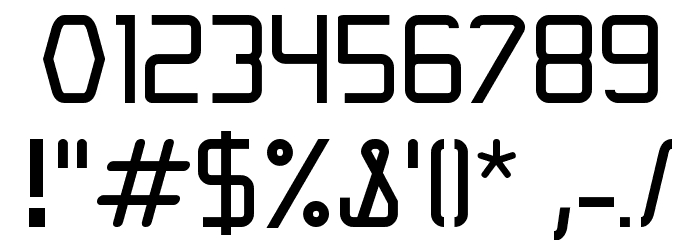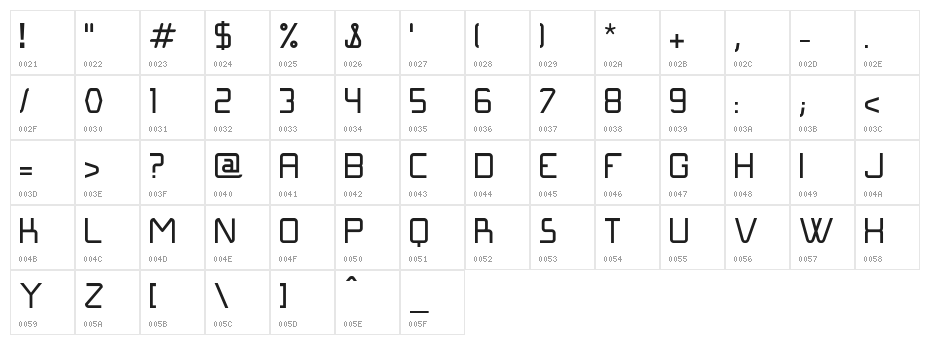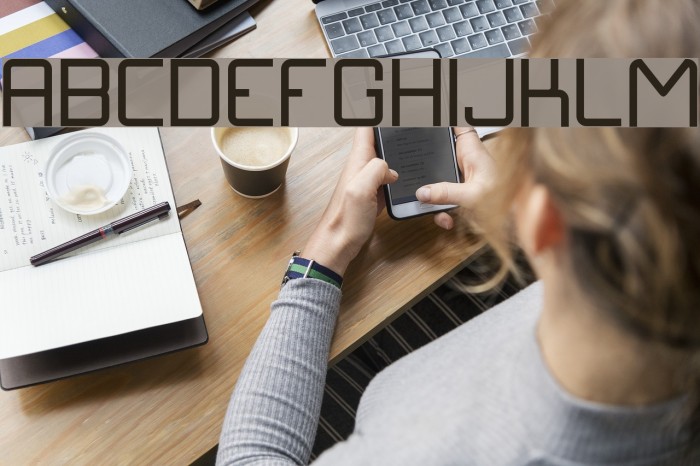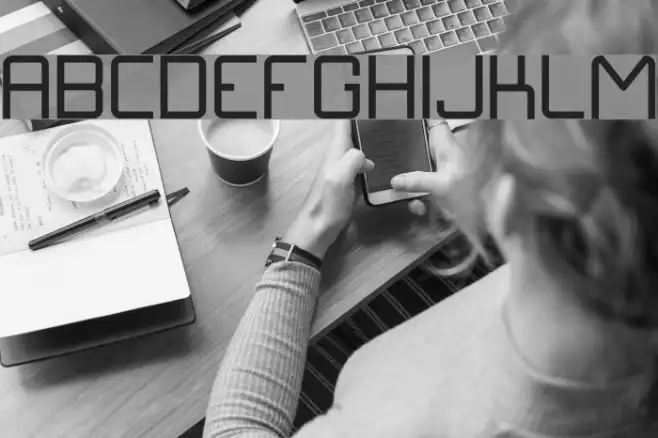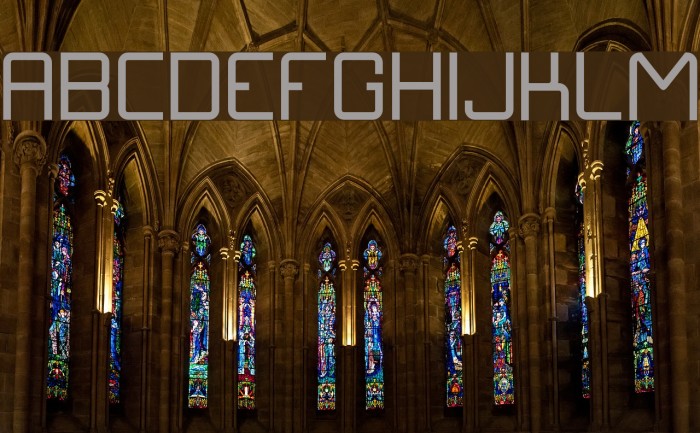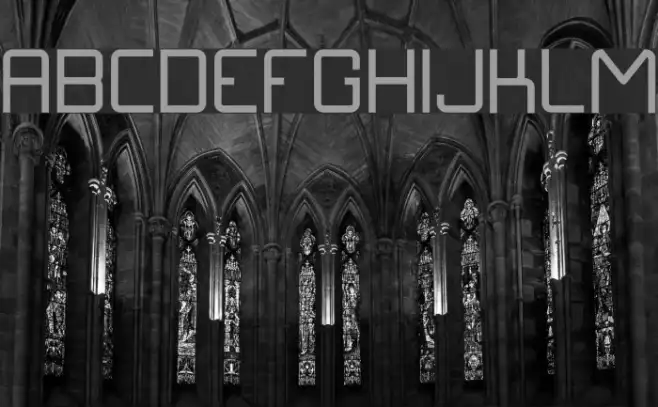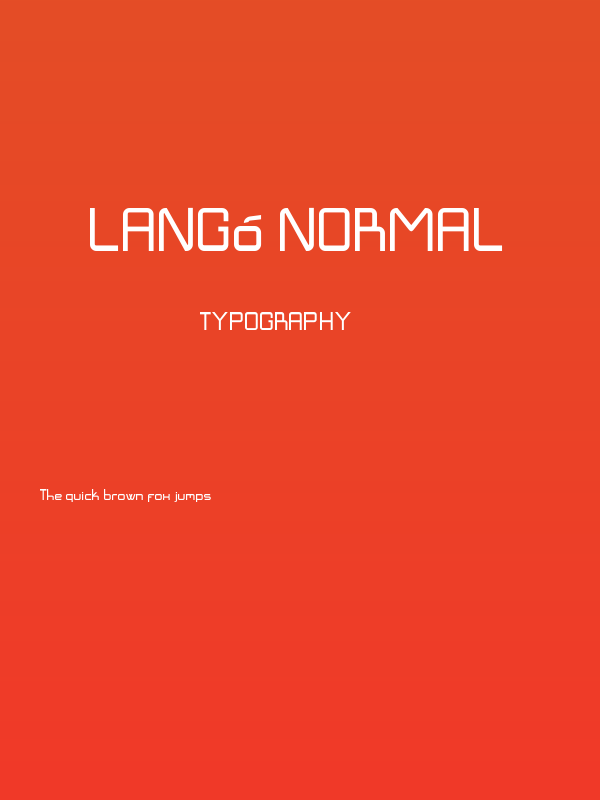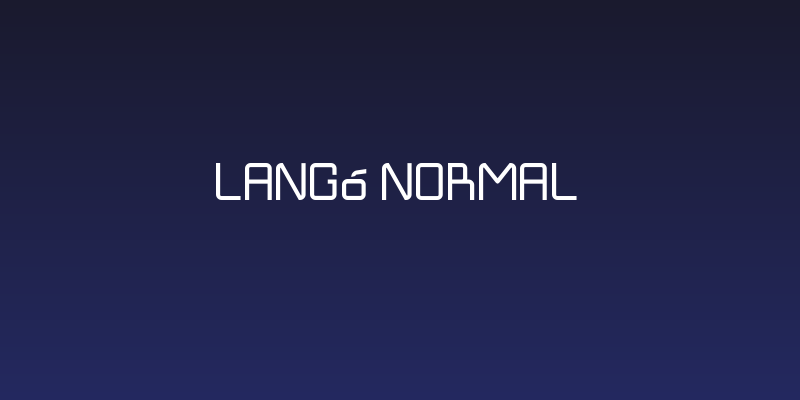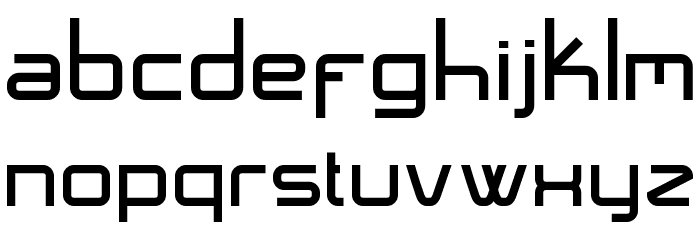
Langó Normal Font
Langó Normal Description
This font features a geometric and modern design with a clean and structured appearance. The characters are formed with straight lines and sharp angles, giving it a futuristic and technical feel. The uppercase letters are uniform in height, while the lowercase letters maintain a consistent baseline, enhancing readability. The numerals are distinct and align well with the overall style, making them suitable for digital displays. Special characters are designed to match the font's angular aesthetic, ensuring a cohesive look across all text elements.
Use CaseHeadlines, Logos, Digital Displays
Proposed ProjectsIdeal for technology branding, digital interfaces, modern posters, and futuristic designs.